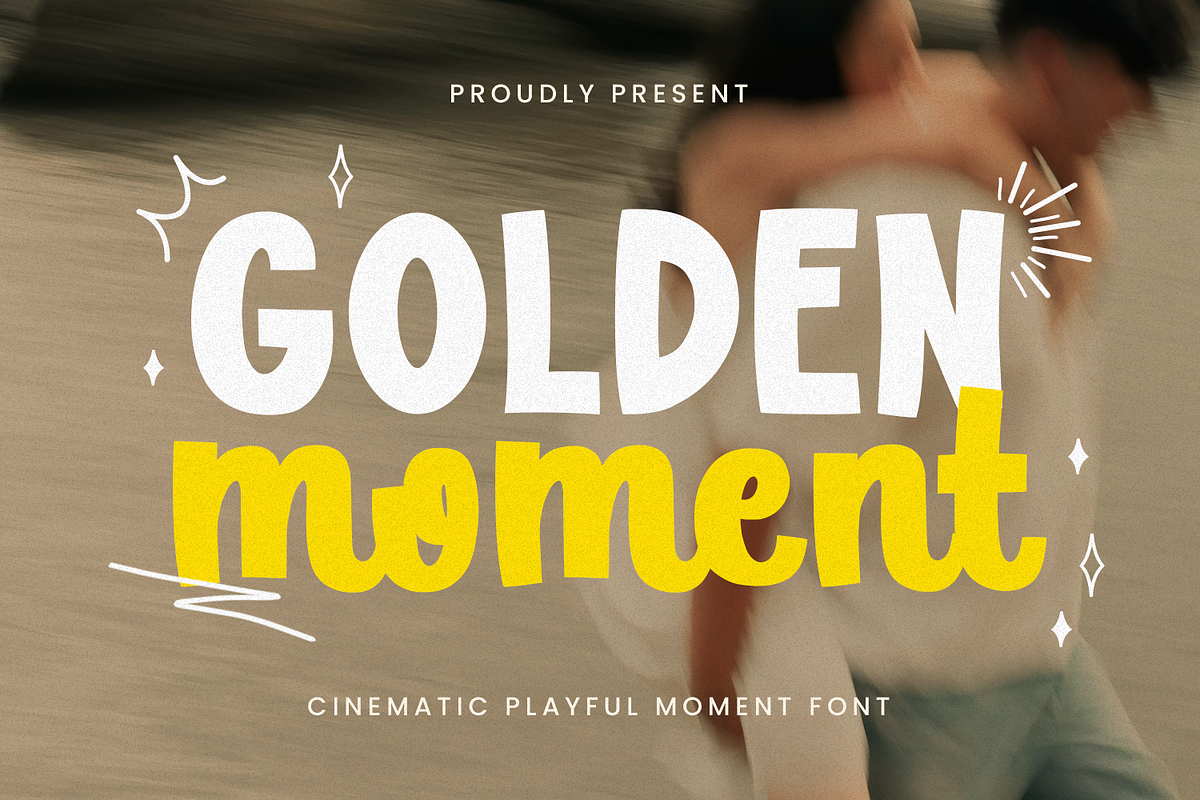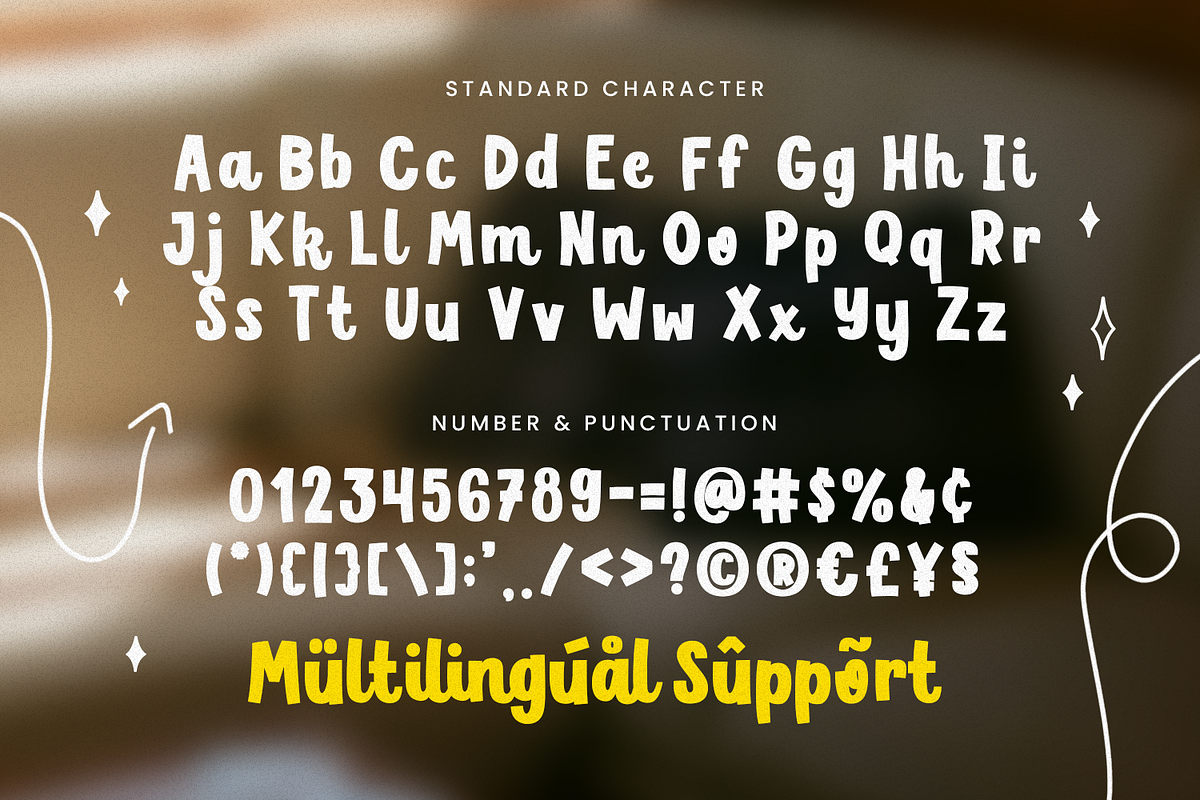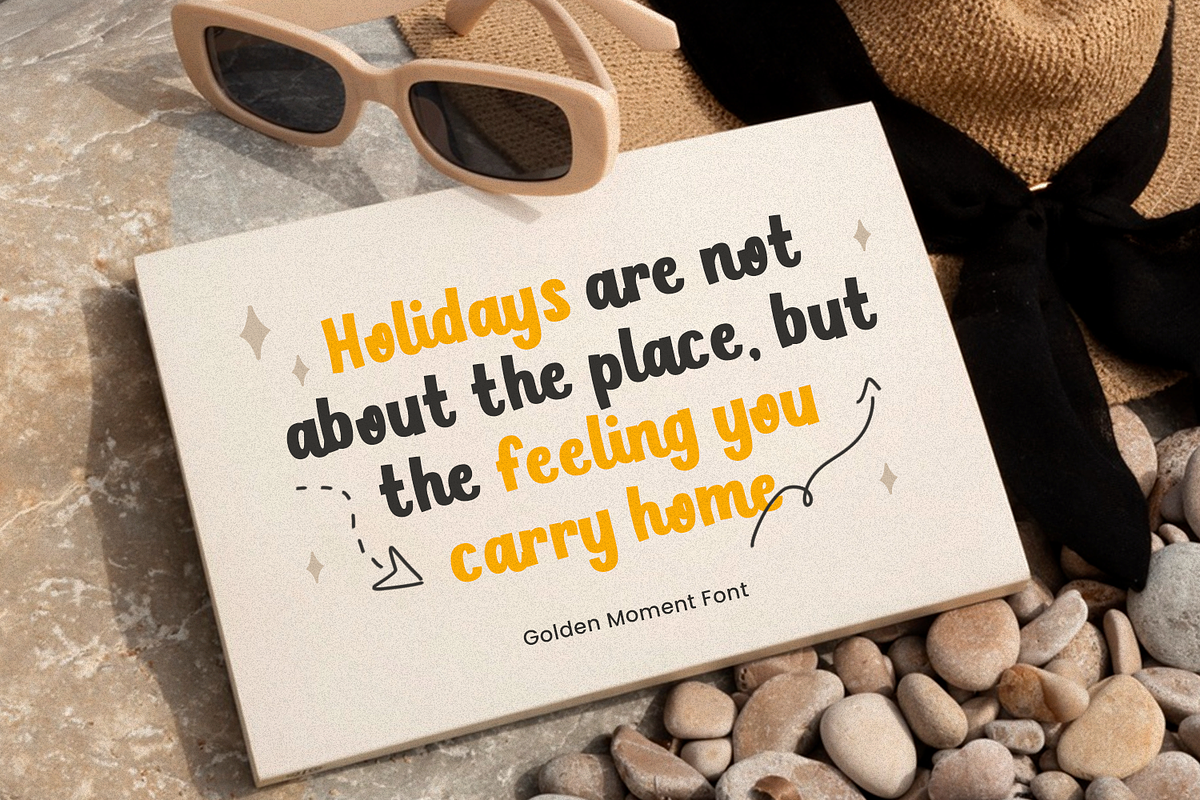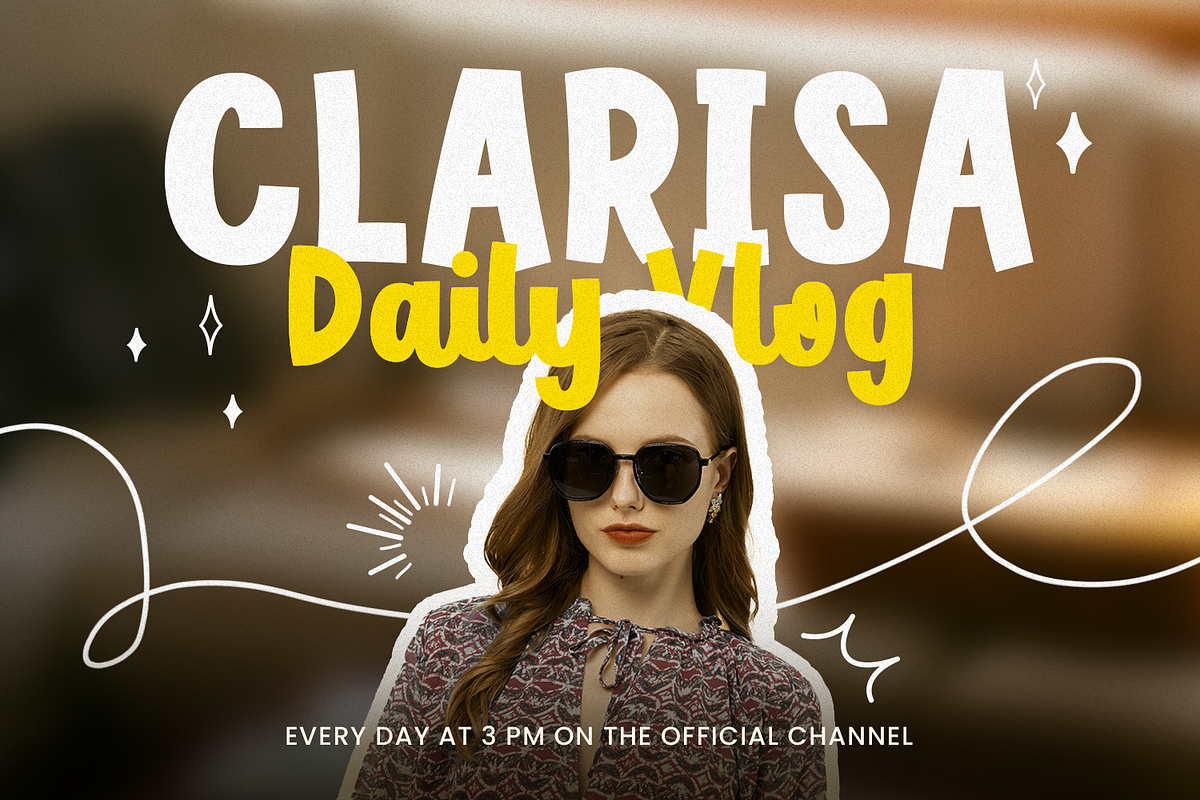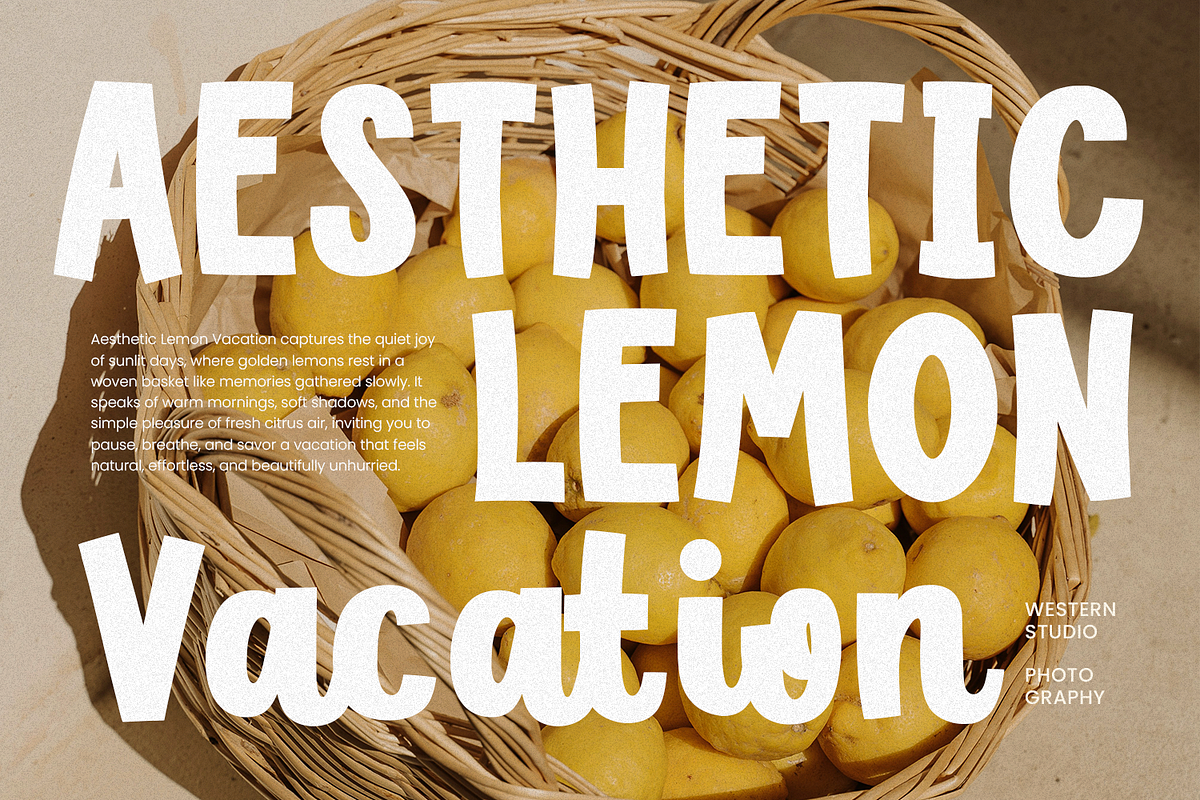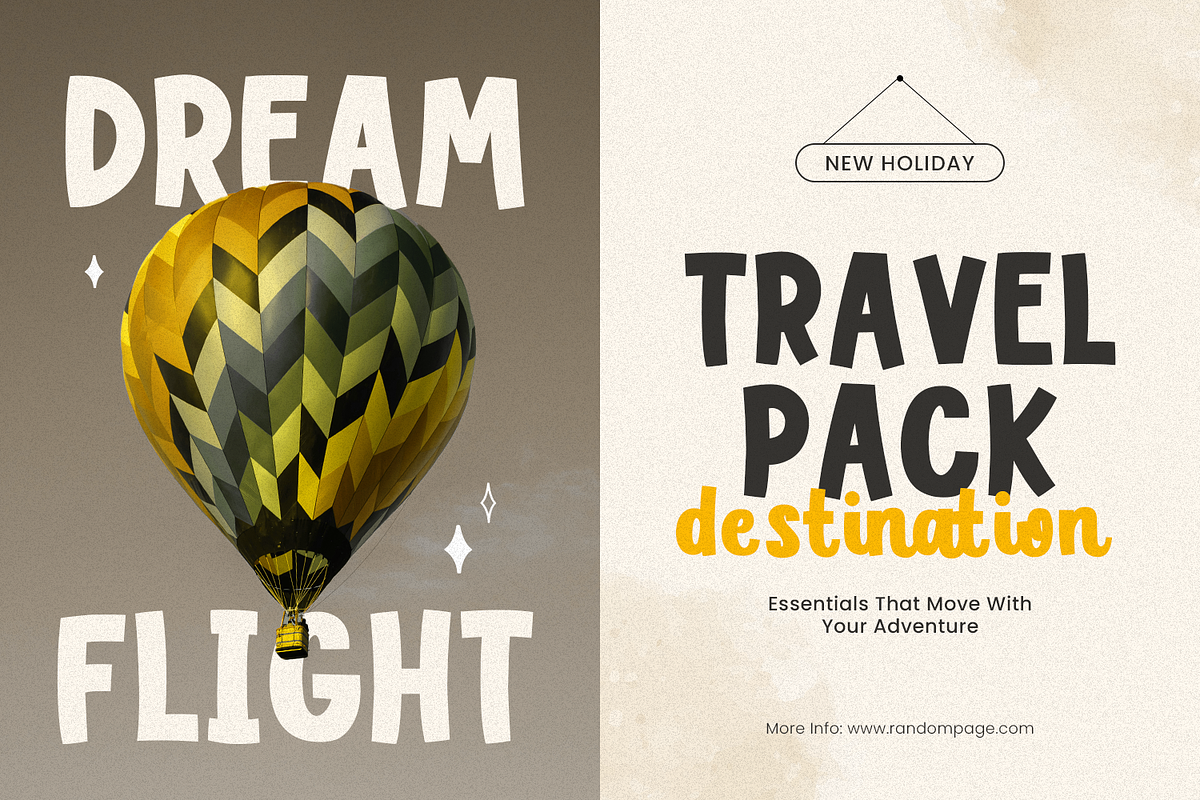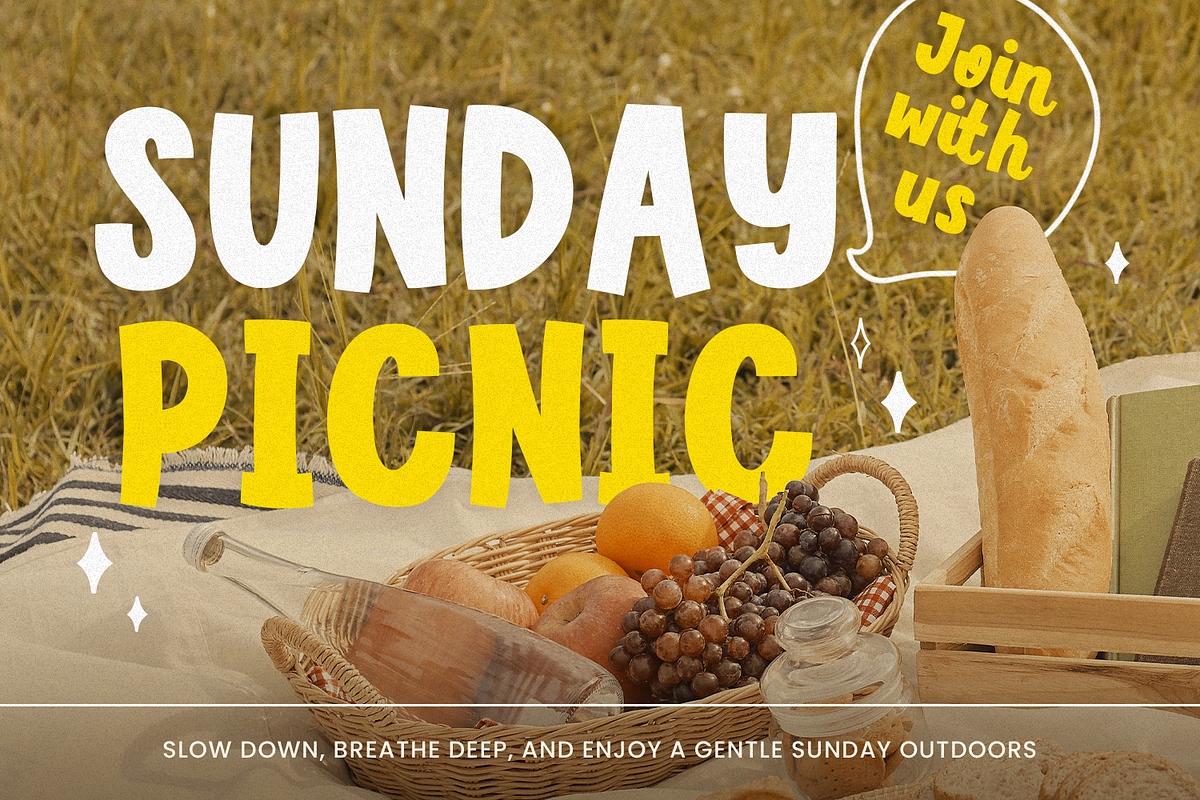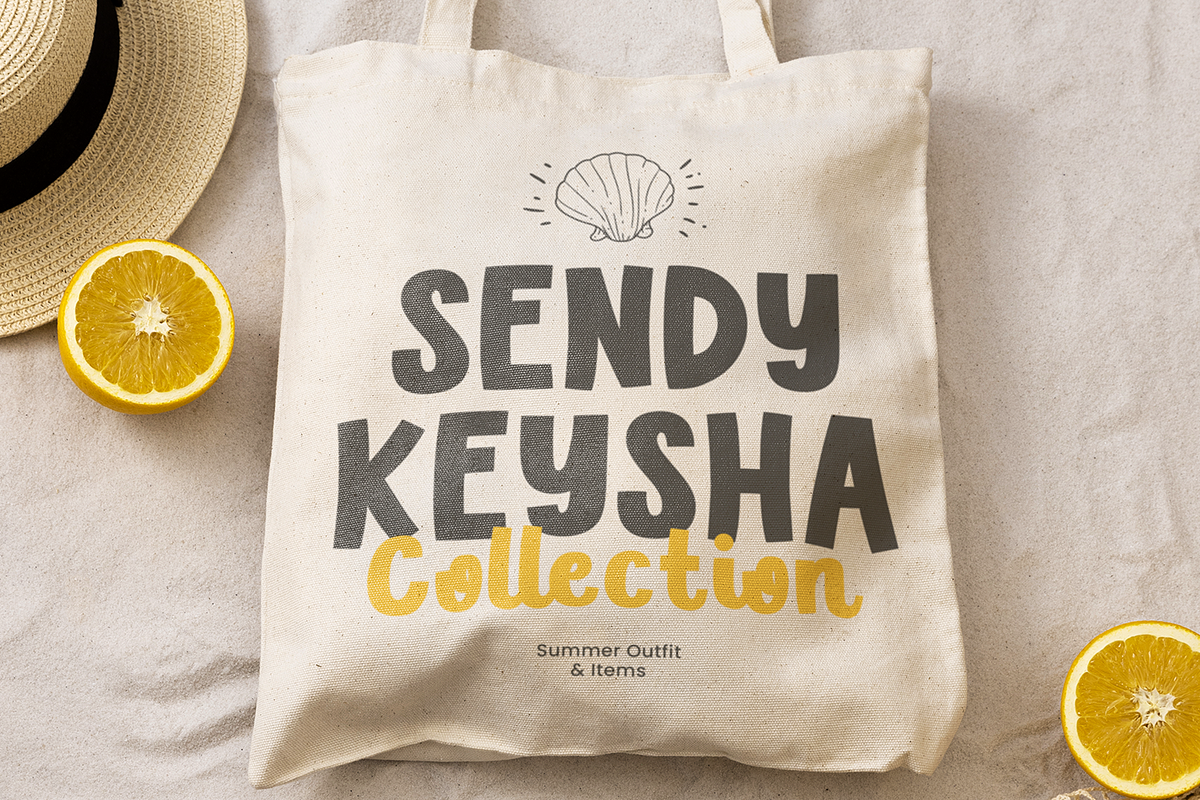
Golden Moments
Golden Moments – Quotes Font is a modern and elegant display font designed to capture attention instantly. With its stylish letterforms and aesthetic appeal, this font is perfect for creating eye-catching quotes, vlog titles, and social media thumbnails that feel warm, expressive, and memorable.
Created with versatility in mind, Golden Moments works beautifully for aesthetic posters, inspirational quotes, and creative layouts. Its clean yet artistic style makes it easy to read while still standing out, making it ideal for digital content, branding visuals, and eye-pleasing typography designs.
This font is also a great choice for logotypes and personal branding projects. Whether you are designing a logo, packaging, or merchandise like tote bags, Golden Moments – Quotes Font adds a refined and modern touch that enhances the overall visual identity.
Perfect for both digital and print use, Golden Moments fits a wide range of creative needs including vlogs, YouTube thumbnails, posters, quotes designs, and lifestyle products. Its balanced display style ensures your text looks professional, trendy, and highly shareable across platforms.
- Standard & Multilingual glyphs.
Fonts include multilingual support for; Afrikans, Danish, Dutch, English, Estonian, Filipino, Finnish, French, Friulian, Galician, German, Gusii, Indonesian, Irish, Italian, Luxembourgish, Norwegian Bokmål, Norwegian Nynorsk, Nyankole, Oromo, Portuguese, Romansh, Rombo, Spanish, Swedish, Swiss-German, Uzbek (Latin) Scottish, Swiss, etc.